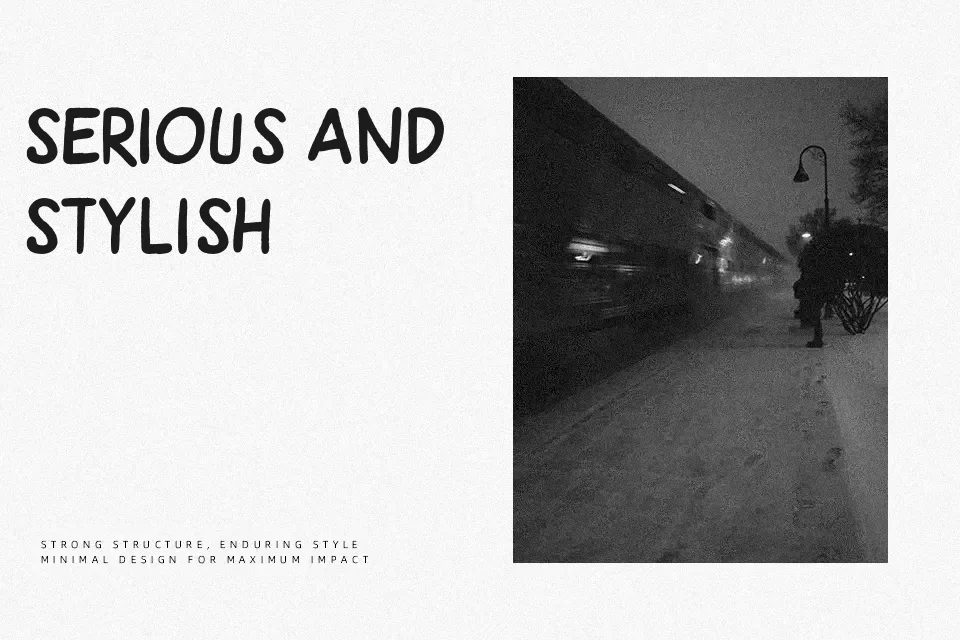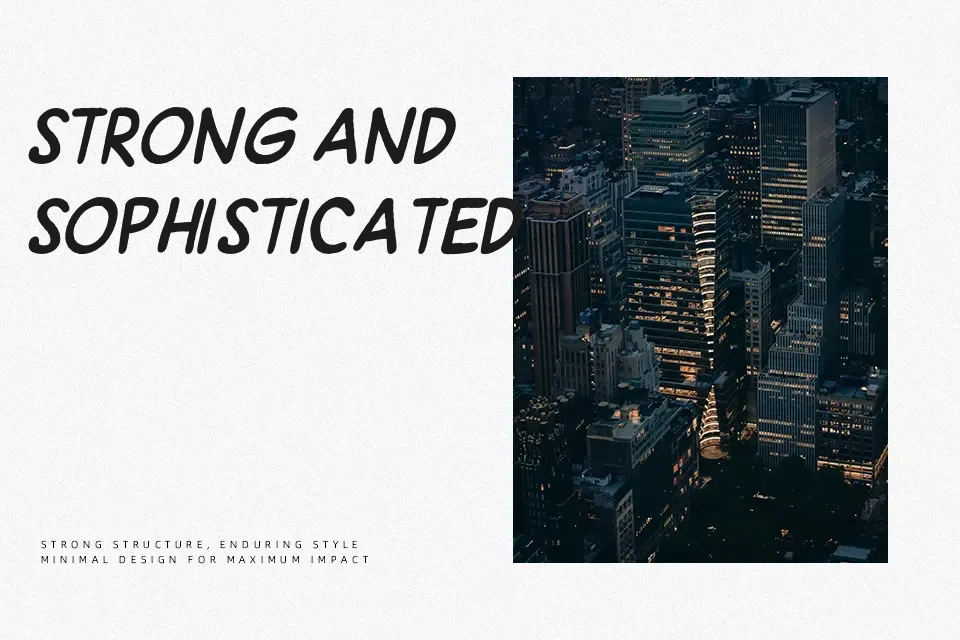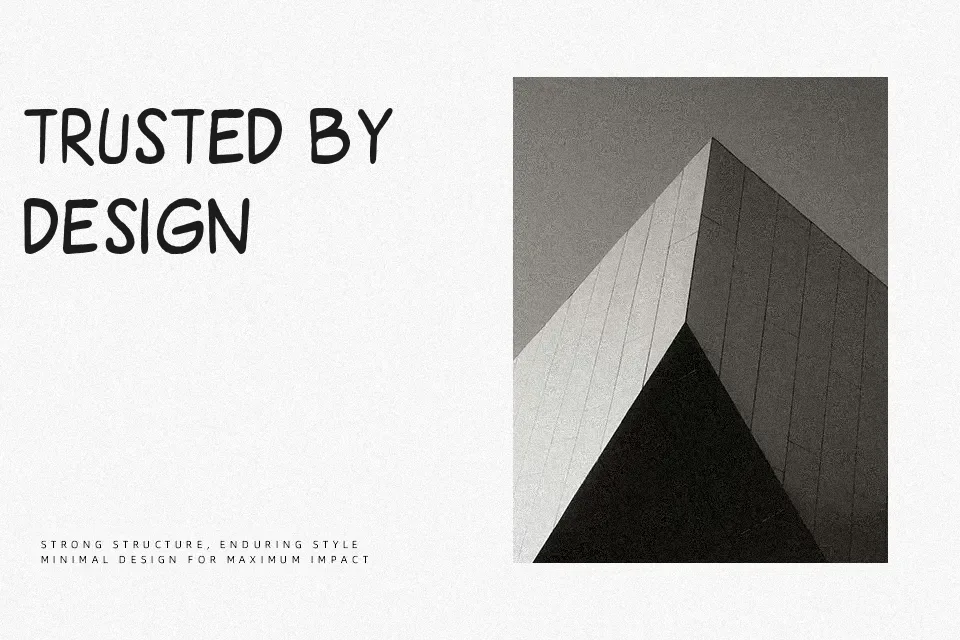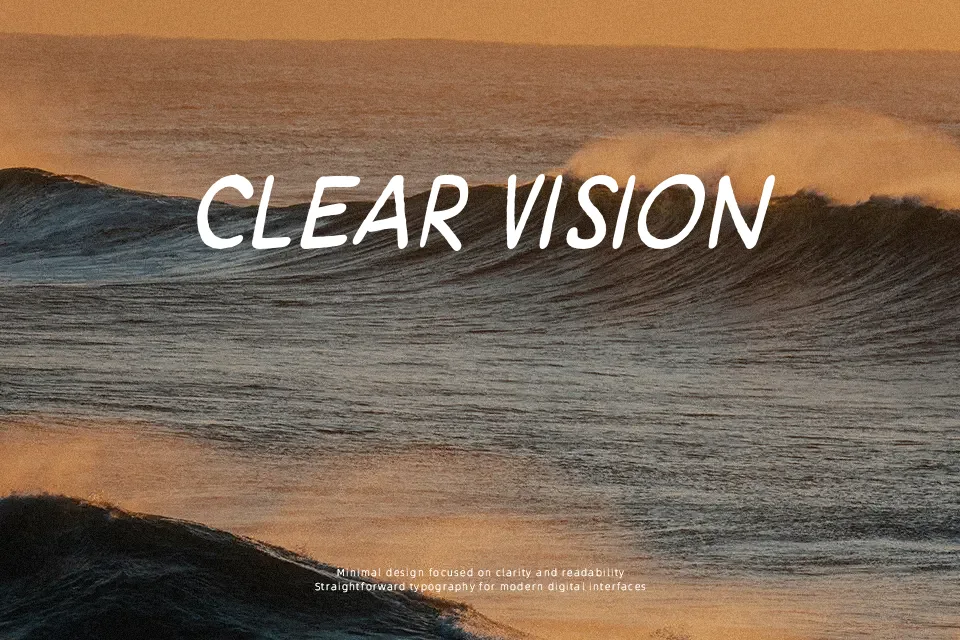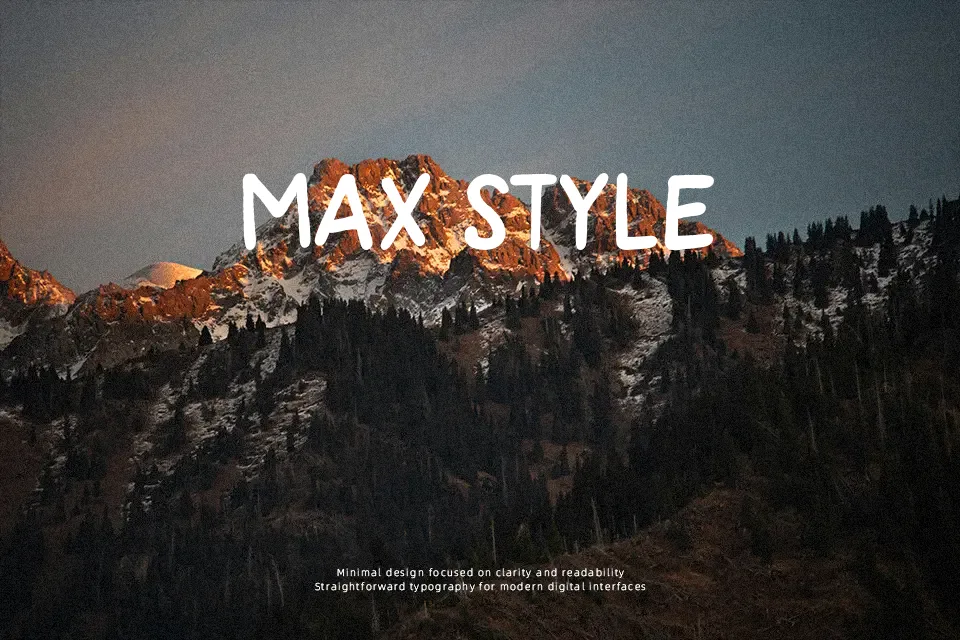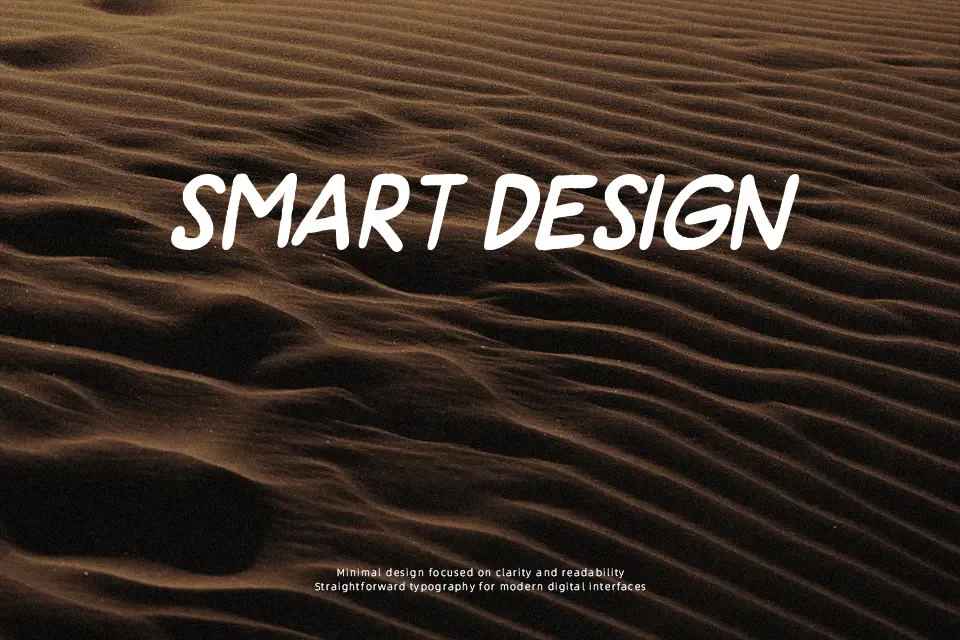
Super Gossip Font
Designed by PressGang Studios
Super Gossip Font uses chunky, rounded comic-style letterforms with heavy strokes, unevenly animated proportions, and a compact display rhythm. The shapes read with a hand-drawn energy rather than a rigid geometric structure, while the bold weight keeps individual characters visible in short words and headlines. It works naturally for comic dialogue, illustrated posters, playful product labels, and character-focused artwork. The dense forms and expressive construction give large text more presence, but they can make smaller settings feel crowded. In practical use, the typeface is clearest when given room to scale up rather than being compressed into long copy.
comic book dialogue,illustrated poster headlines,character name labels,playful packaging
long paragraph text,small interface labels,corporate reports,dense editorial layouts
Perfect for advertising, headline, and kids, with a bold and comic style.